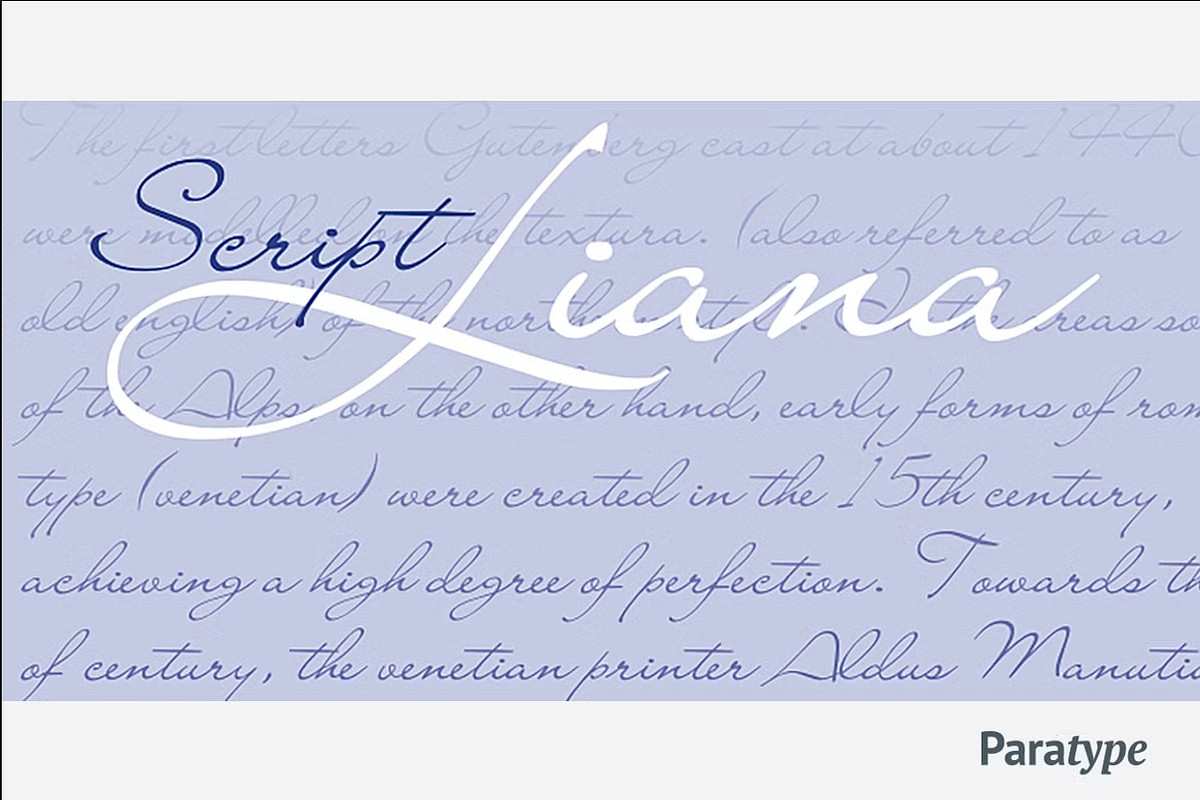
Liana
Liana is a calligraphic font based on a freestyle broad-nib pen writing. Low contrast and wide proportions convey a mild, informal spirit on the verge of decent handwriting and calligraphy. The font is versatile for short inscriptions, packaging, greeting cards and is able to create a sense of softness, femininity and comfort. Liana was designed by Natalia Vasilieva in 1998 based on Lainie font by Soft Horizonts. Released by ParaType in 2005.